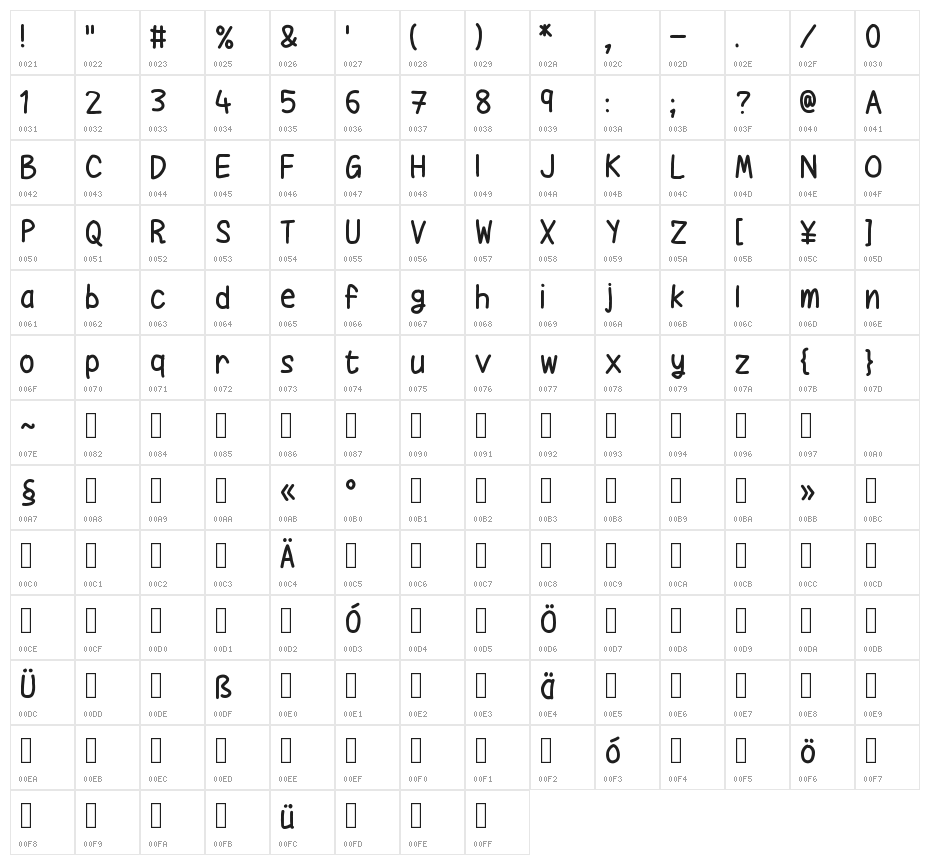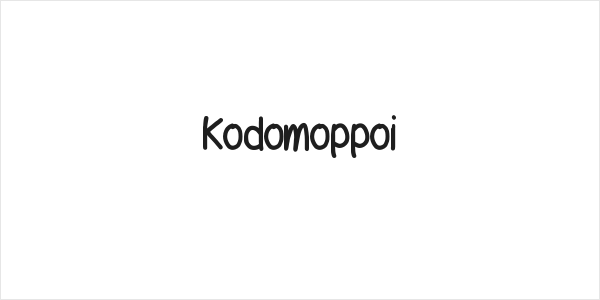
Kodomoppoi Font
Kodomoppoi Description
This playful and whimsical font features a handwritten style with rounded edges and a casual appearance. The letters are slightly irregular, giving it a friendly and approachable feel. The uppercase and lowercase characters maintain a consistent style, with a slight tilt and varying stroke thickness that adds to its charm. The numbers and special characters follow the same playful design, making it versatile for various uses. Its informal nature makes it ideal for projects that require a personal touch or a fun, lighthearted vibe.
| Proposed Projects | Ideal for children's books, greeting cards, playful branding, and informal invitations. |